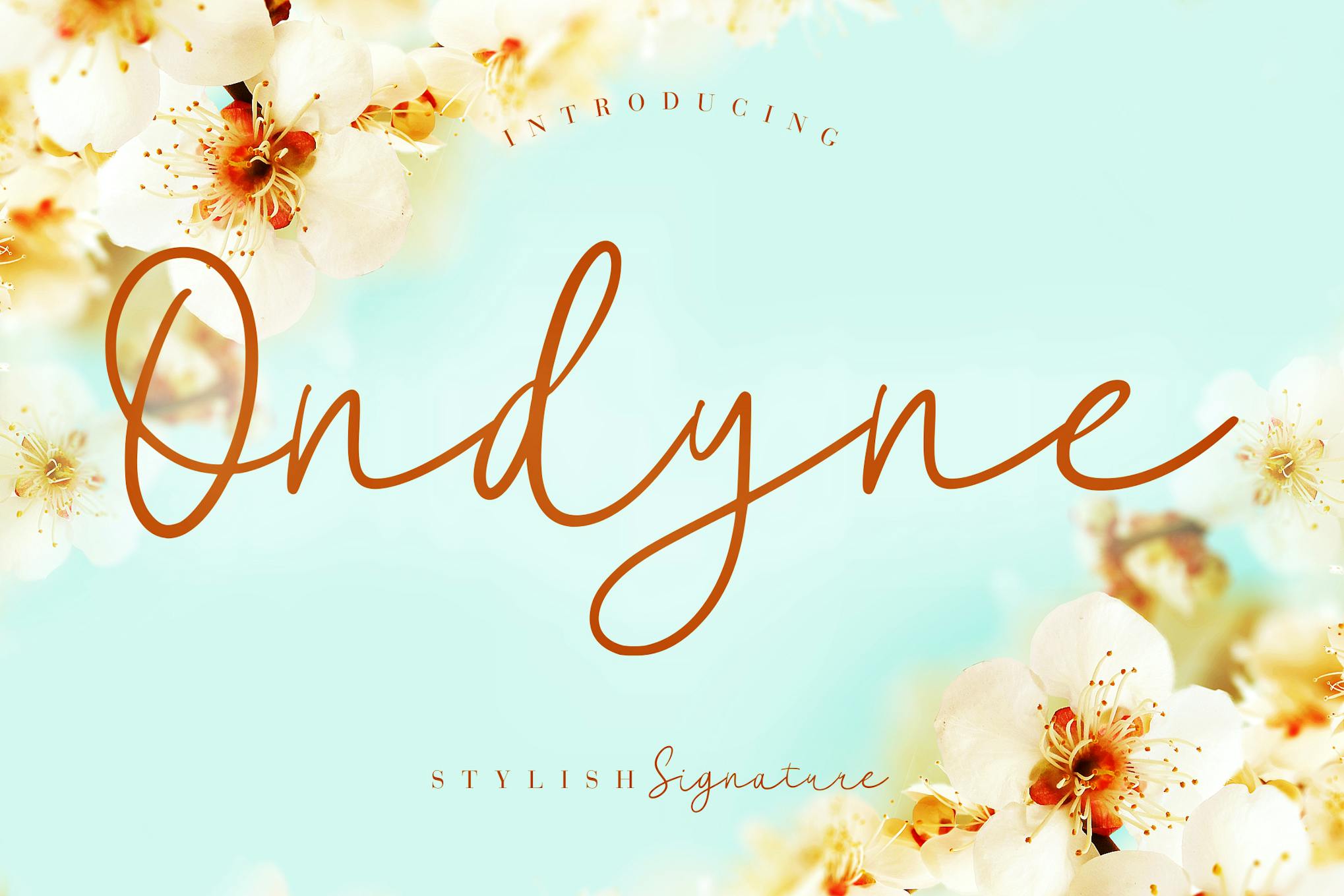
Ondyne Stylish Wedding Font
The Ondyne Stylish Wedding Font excels in fashionable design applications including trendy wedding invitations, stylish bridal branding, chic ceremony logos, fashionable product packaging, stylish business cards, trendy portfolios, chic greeting cards, fashionable social media graphics, stylish event signage, and trendy marketing materials. Its stylish script style makes it perfect for projects requiring fashionable elegance that communicates trendiness and establishes chic brand positioning with audiences seeking stylish wedding experiences and fashionable sophistication.
What makes the Ondyne Stylish Wedding Font truly exciting is its exceptional ability to capture the fashionable beauty and stylish elegance of trendy weddings through chicly crafted letterforms. The font features flowing, fashion-inspired strokes with stylish flourishes and trendy proportions that create a distinctly chic appearance. Each character displays remarkable attention to fashionable detail with stylish curves, trendy connections, and chic spacing that give text a beautifully fashionable, hand-lettered quality. The font's stylish character and trendy rhythm create an atmosphere of chic elegance while maintaining fashionable sophistication and wedding authenticity.
The Ondyne Stylish Wedding Font family typically includes regular weight with extensive character coverage, featuring uppercase and lowercase letters, numerals, punctuation marks, and international characters. The typeface often incorporates stylistic alternates, contextual ligatures, and fashionable swashes that enhance its signature style. These additional elements provide designers with creative flexibility to customize text appearance and achieve more natural-looking stylish handwriting that reflects the font's trendy and chic character.
This fashionable signature font distinguishes itself through its remarkable balance of stylish charm and sophisticated elegance. Unlike outdated or unfashionable fonts that lack trendy appeal, Ondyne Stylish Wedding Font embraces the power of chic design to create fashionable connections with stylish wedding audiences. The font's trendy character makes it essential for fashionable wedding planners, stylish brands, and chic celebration businesses where creating trendy wedding experiences and fashionable memories is fundamental to success in stylish wedding markets.
The Ondyne Stylish Wedding Font Free Download presents designers with an outstanding opportunity to incorporate fashionable elegance into their stylish wedding projects. From trendy wedding venues to chic celebration brands, this font delivers the stylish signature aesthetic that resonates with couples seeking fashionable and stylishly sophisticated wedding experiences. Its chic appeal ensures your designs communicate trendy beauty while the signature styling adds distinctive personality that reflects fashionable romance and stylish sophistication in any application requiring trendy typography solutions.